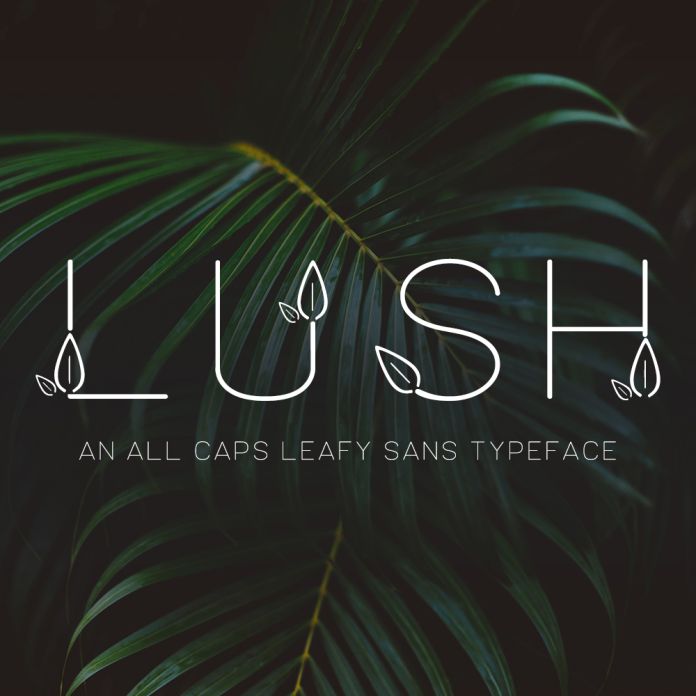
Lush Sans Leafy Typeface
Introducing Lush, a sans typeface with leaf details! Lush is an all-caps font, with the “lowercase” characters featuring the leaf details. Lush is a bit wide-set, modern, and includes numbers, punctuation, and Western European language support. Lush is perfect for health-conscious brands, brands centered on organic and natural products, florists & botanists, and more!